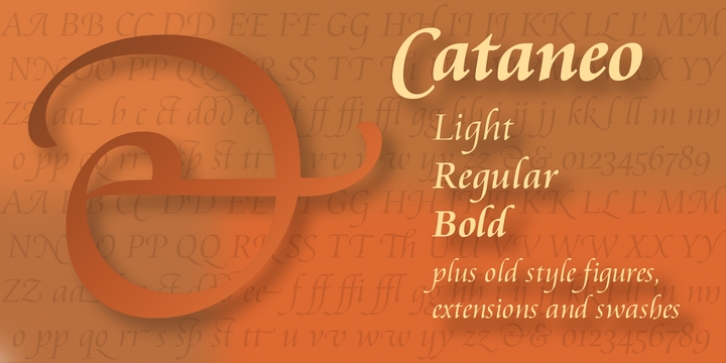
Cataneo was designed at Bitstream by Richard Lipton and Jacqueline Sakwa and was initially released in 1993. Cataneo is an elegant chancery cursive typeface, inspired by the work of Bernardino Cataneo, a 16th-century Italian writing master. Cataneo offers as companions, typographer sets of swash characters and extensions to round out the family of three weights.